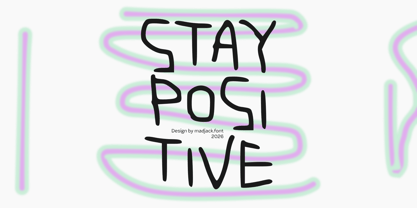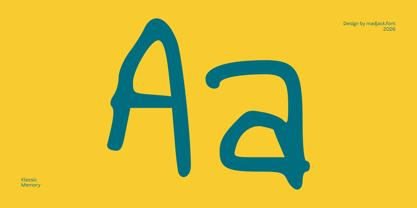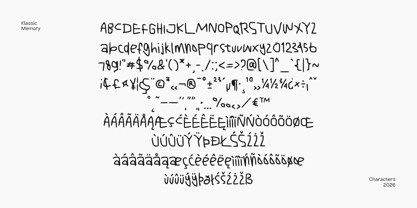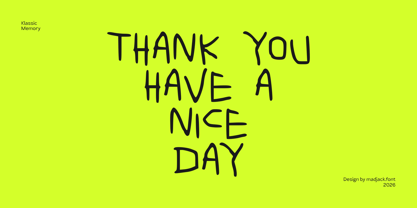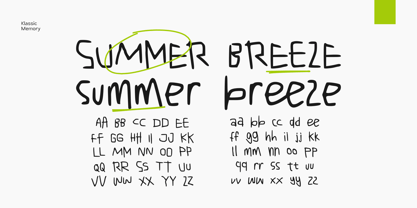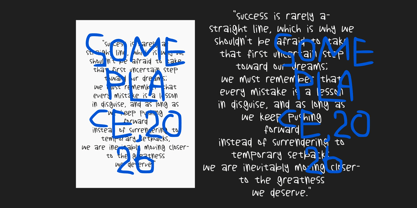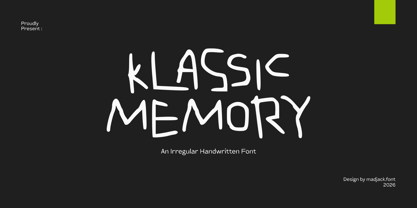
Klassic Memory
The Klassic Memory Font Family was designed by Zaki Muhammad and published by madjack.font. Klassic Memory contains 1 styles. More about this family
Klassic Memory is an irregular handwritten font with a natural and expressive style. The uneven strokes and organic letterforms create an authentic handwritten feel, giving designs a unique and personal character. This font is perfect for creative projects such as posters, branding, packaging, quotes, social media graphics, and playful design layouts. Klassic Memory brings a casual, artistic, and charming touch to every design. Features: Alternative Ligatures & Glyphs Multilingual Works on PC & Mac Simple Installation Accessible in Adobe Illustrator, Adobe Photoshop, Adobe InDesign, and even Microsoft Word. Thank you!